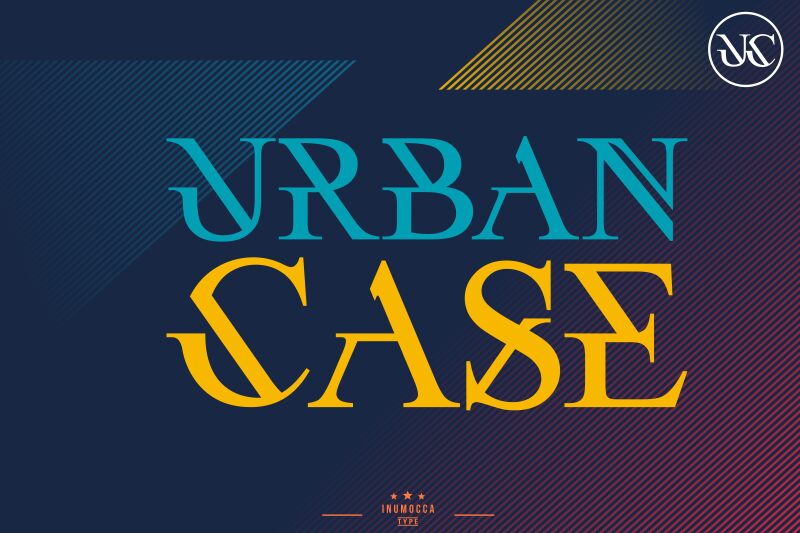
Urban Case is a modern, edgy display font designed by inumocca_type. Its bold, geometric style is perfect for attention-grabbing headlines, logos, and branding projects. With its unique character shapes and versatile selection of weights ranging from light to semi-bold, Urban Case can also add a touch of personality to packaging designs or editorial layouts. The font's condensed width makes it an excellent choice for smaller spaces where space is limited while still maintaining legibility. Whether you're designing for fashion or technology industries, Urban Case adds a contemporary flair to any project with its clean lines and sharp angles.
Urban Case